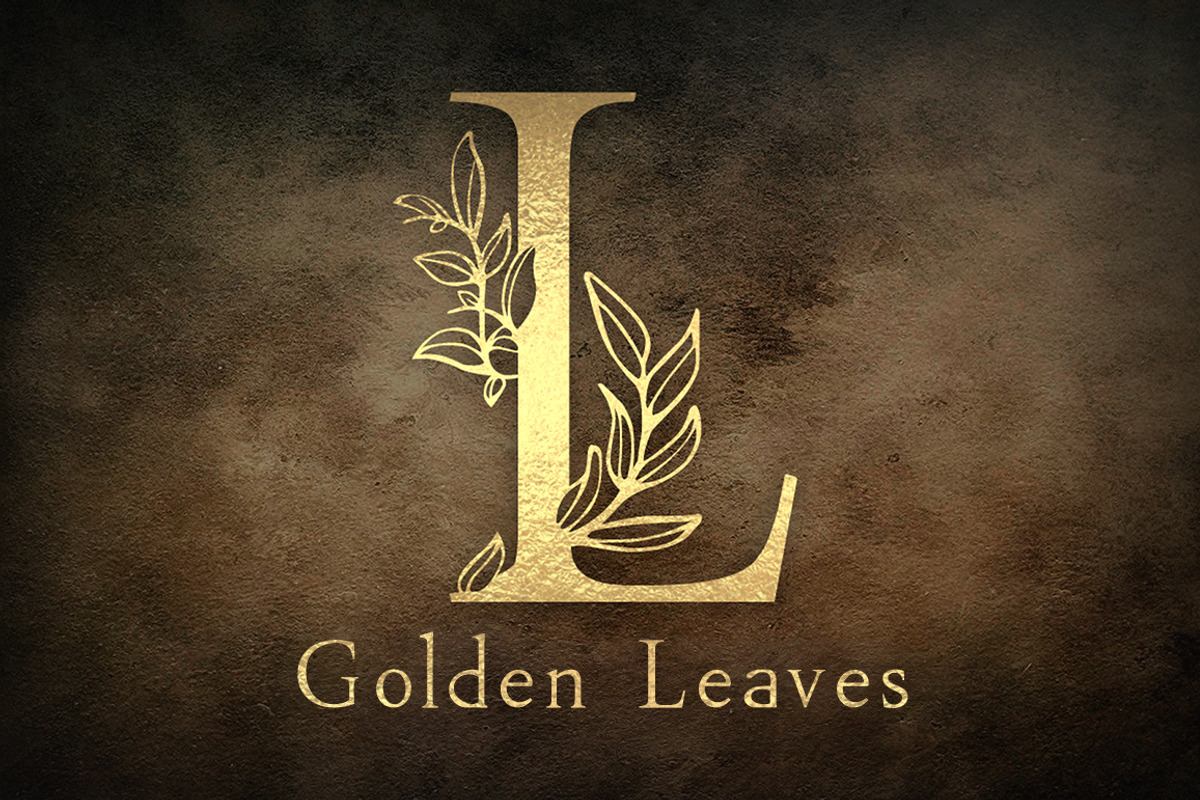
Golden Leaves - Floral Font Free Download is a beautifully artistic typeface that combines elegant lettering with delicate botanical elements. Each character is adorned with subtle floral details, making this font perfect for wedding invitations, nature-inspired branding, product packaging, greeting cards, and seasonal designs.
Its graceful, hand-drawn style adds a natural, whimsical charm to your typography, while still maintaining readability. Golden Leaves is ideal for designers who want to add a touch of romance and organic beauty to their work.